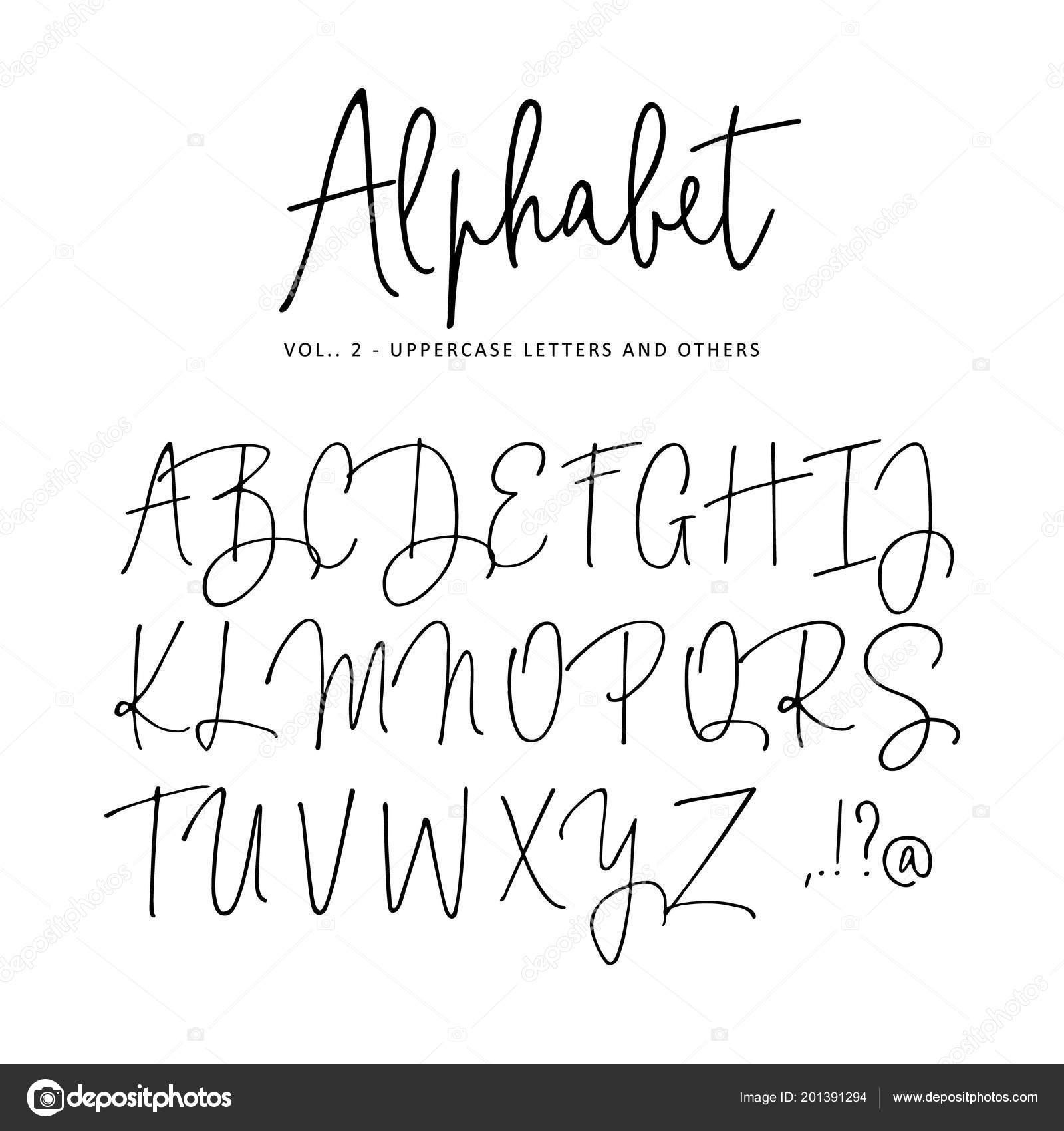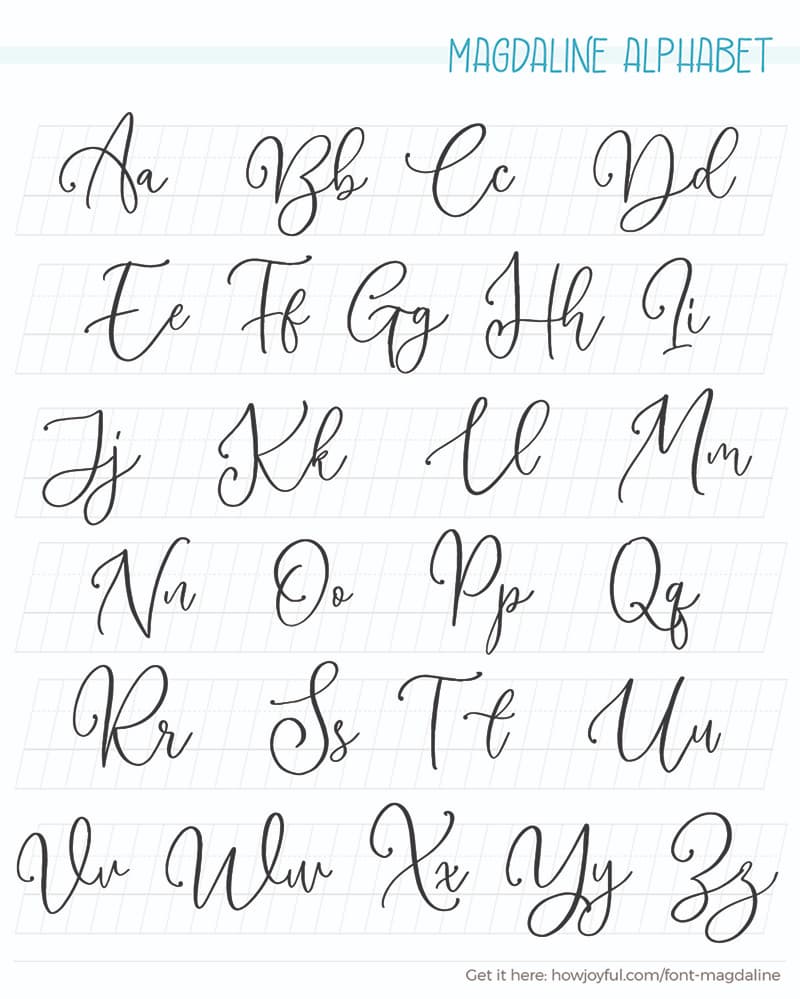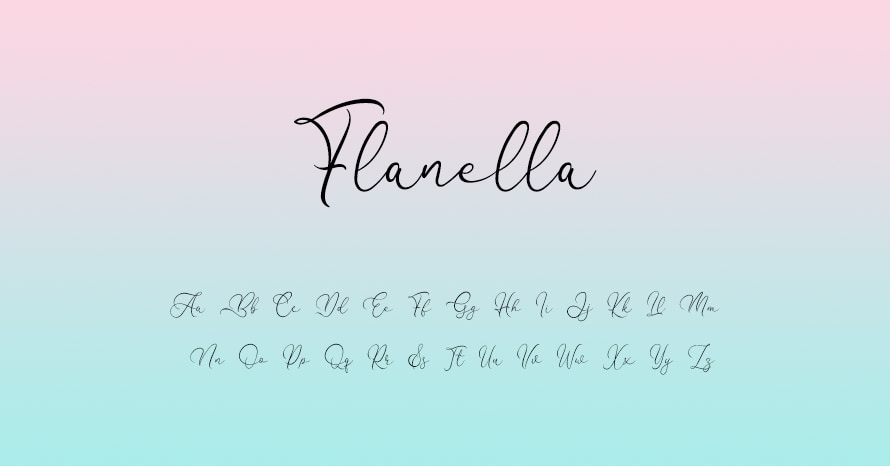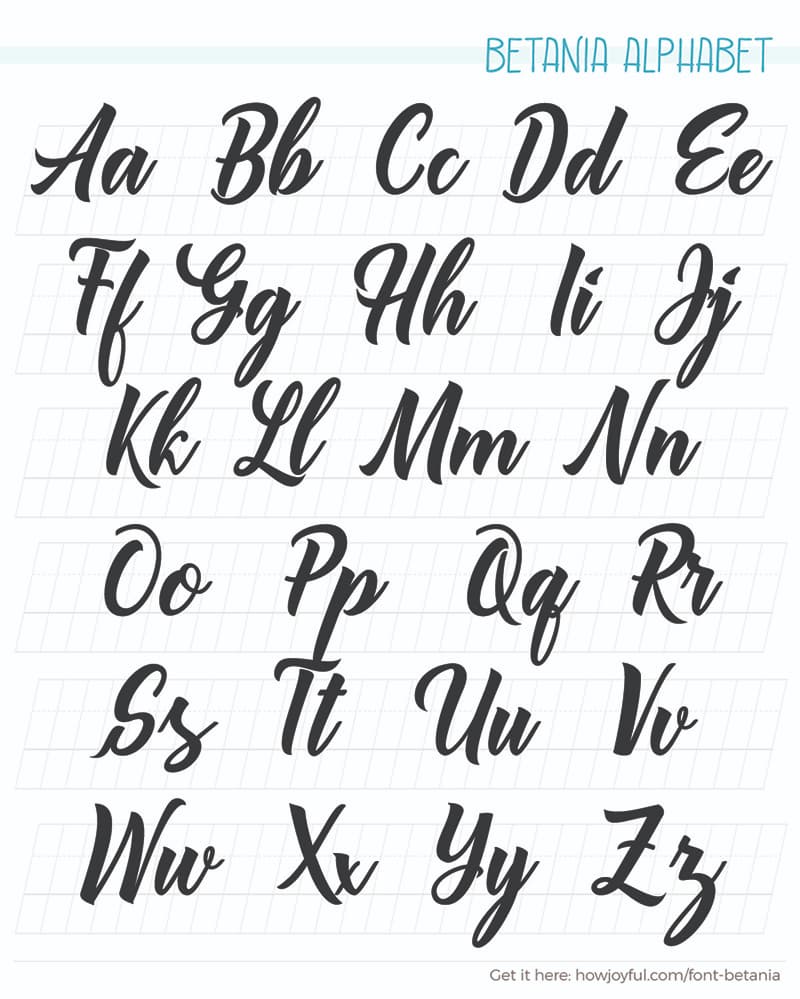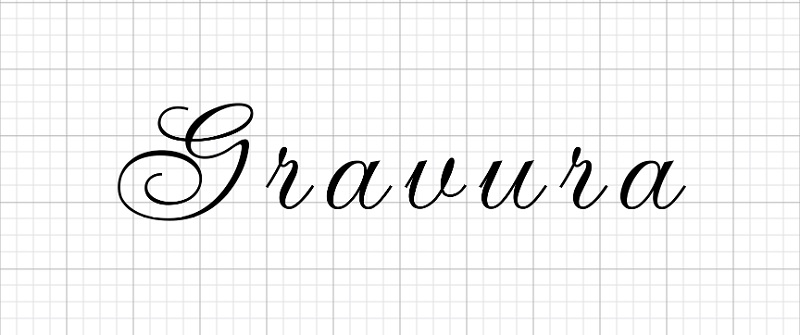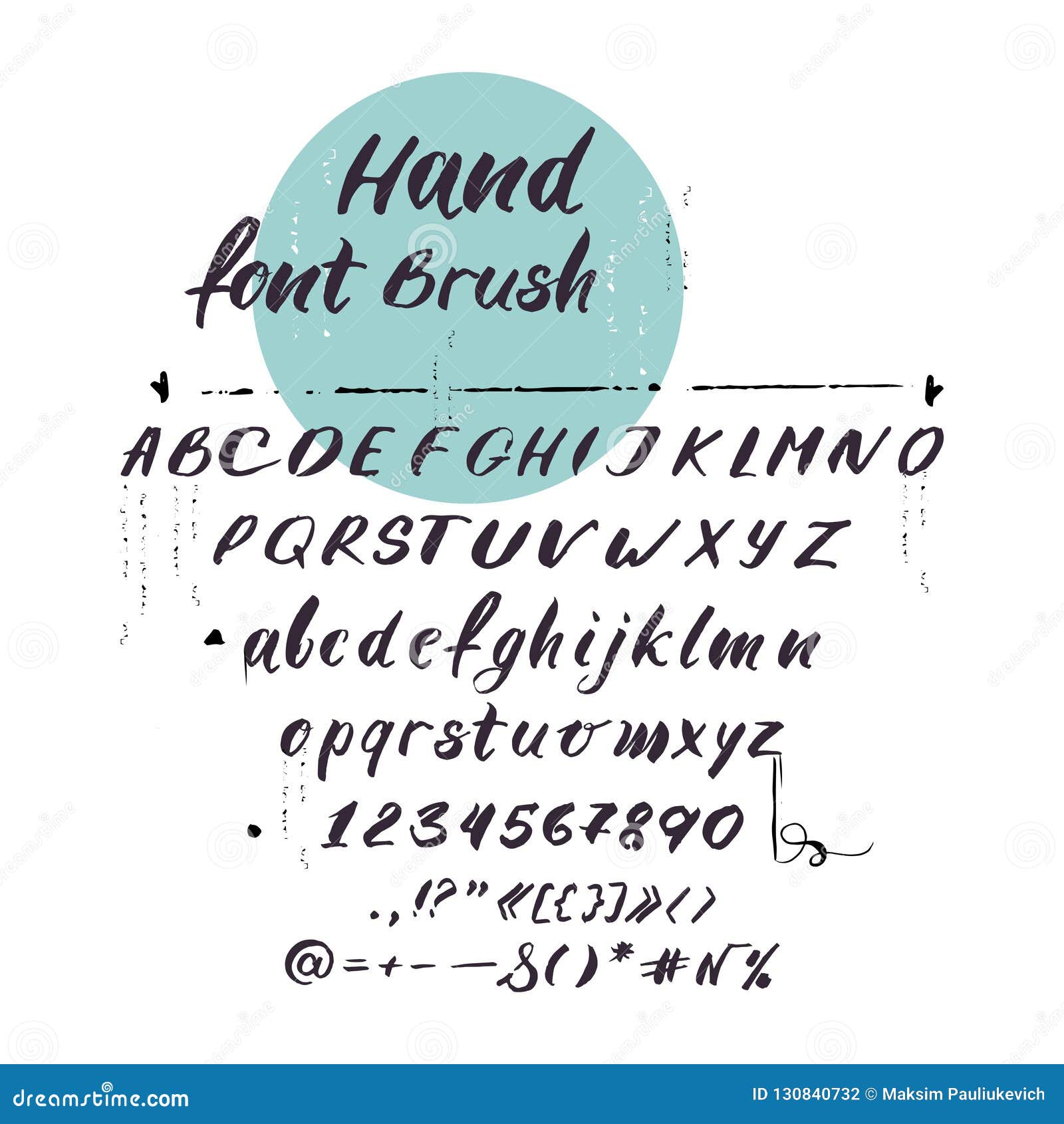
Cursive font capital j page 1 cursive capital calligraphy alphabet capital cursive letters these pictures of this page are aboutcursive font capital j Cursive writing a to z cursive writing for beginners satisfying cursive writing improve your handwriting about this video. See more ideas about tattoo lettering fonts tattoo lettering styles.
Black Ink Hand Drawn Alphabet Capital Letters Expressive Calligraphy Font Calligraphy Brush Painted Script Font Canstock
Calligraphy capital i in cursive.
Thousands of new high-quality pictures added every day. The styles of this calligraphy alphabet is very cursive in nature with smooth lines and neat closings at the ends. Cursive font is a type of font which was first used back in the fifth century.
Fancy letter capital calligraphy cursive designs font letters fonts tattoo alphabet tattoos monogram latin outfits work casual winter lettering inspiring. Elegant fancy calligraphy alphabet sheet. Excerpt from 62 phenomenal handwriting alphabet practice photo inspirations.
Cursive letters as the name suggests are writing letters in curved forms. Capital letters on Behance. Its the perfect font for designing everything from website headers to greeting cards T-Shirt designs and more.
I tell a little background about my calligraphy experience and then demonstrate the capital letters I use in my everyday calligraphyCursive Tutorial inclu. Cursive writing a to z capital and small letters we share with you these beautiful cursive alphabet worksheets practice the uppercase and. We Have got 26 pic about Calligraphy Alphabet Letters Cursive Fancy S images photos pictures backgrounds and more.
Calligraphy Alphabet Letters Cursive Fancy S are a subject that is being searched for and appreciated by netizens nowadays. Download Calligraphy Fonts Capital Letters This beautiful handwritten script font features both uppercase and lowercase letters with numbers and punctuations. Vintage tattoo cute doodle and more.
If you need a classic and clean cursive script font for stationery and. This method of scriptwriting was first used by Platt Rogers Spencer.